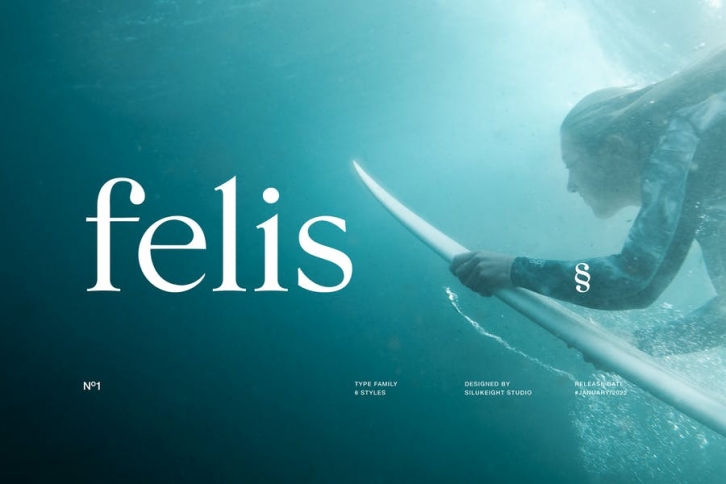
Felis Serif is a classy typeface who design refers style of the traditional font. The main feature of the typeface are hight sharp contrast of the lines, the slightly pointed taper of strong characters. It is suitable for any project purpose like digital or print materials.